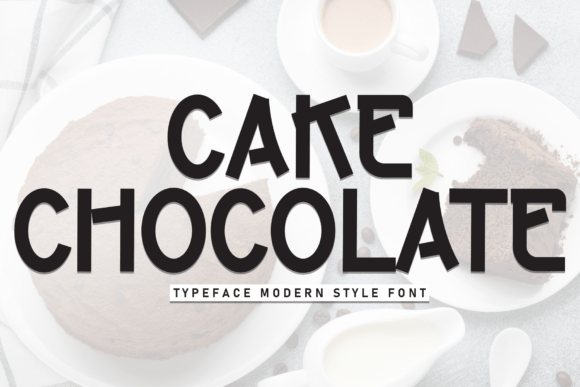
The Sweet Taste of Typography: Discovering Cake Chocolate Font
I still remember the design struggle that led me to discover Cake Chocolate Font. I was working on a branding project for a local bakery, and I was determined to find the perfect font to capture their artisanal spirit. After hours of scouring the internet, I stumbled upon Cake Chocolate, and it was love at first sight! The bold, geometric letterforms and unique notched terminals instantly conveyed the gourmet quality of the bakery’s treats. In this article, I’ll share my experience with Cake Chocolate Font, its features, and how to make the most of it in your designs.
An Honest Review of Cake Chocolate Font
- ✨ Bold and Contemporary Style: Cake Chocolate Font boasts a modern style that’s perfect for high-impact visual statements.
- ✅ Unique Notched Terminals: The subtle notches add a touch of playfulness and hand-crafted charm to the font.
- 💡 High Verticality: The font’s vertical proportions make it ideal for headlines, titles, and short phrases.
- 🎨 Gourmet-Modernist Aesthetic: Cake Chocolate Font embodies the perfect blend of modernity and artisanal flair.
While Cake Chocolate Font is an excellent choice for many design projects, there are a few things to keep in mind:
- 🤔 Limited Legibility at Small Sizes: Due to its bold and geometric nature, Cake Chocolate Font may not be the best choice for body text or small font sizes.
The Backstory of Cake Chocolate Font
Cake Chocolate Font was designed with the intention of capturing the essence of modern artisanal bakeries and gourmet confectionery. The designer aimed to create a font that would convey a sense of sophistication, luxury, and playfulness, perfect for brands that want to stand out in the culinary world.
Q: What is Cake Chocolate Font best suited for?
A: Cake Chocolate Font is ideal for artisanal bakery branding, independent cafe logos, luxury confectionery packaging, and high-energy culinary social media headers.
Q: Can I use Cake Chocolate Font for body text?
A: While Cake Chocolate Font is perfect for headlines and titles, it may not be the best choice for body text due to its bold and geometric nature.